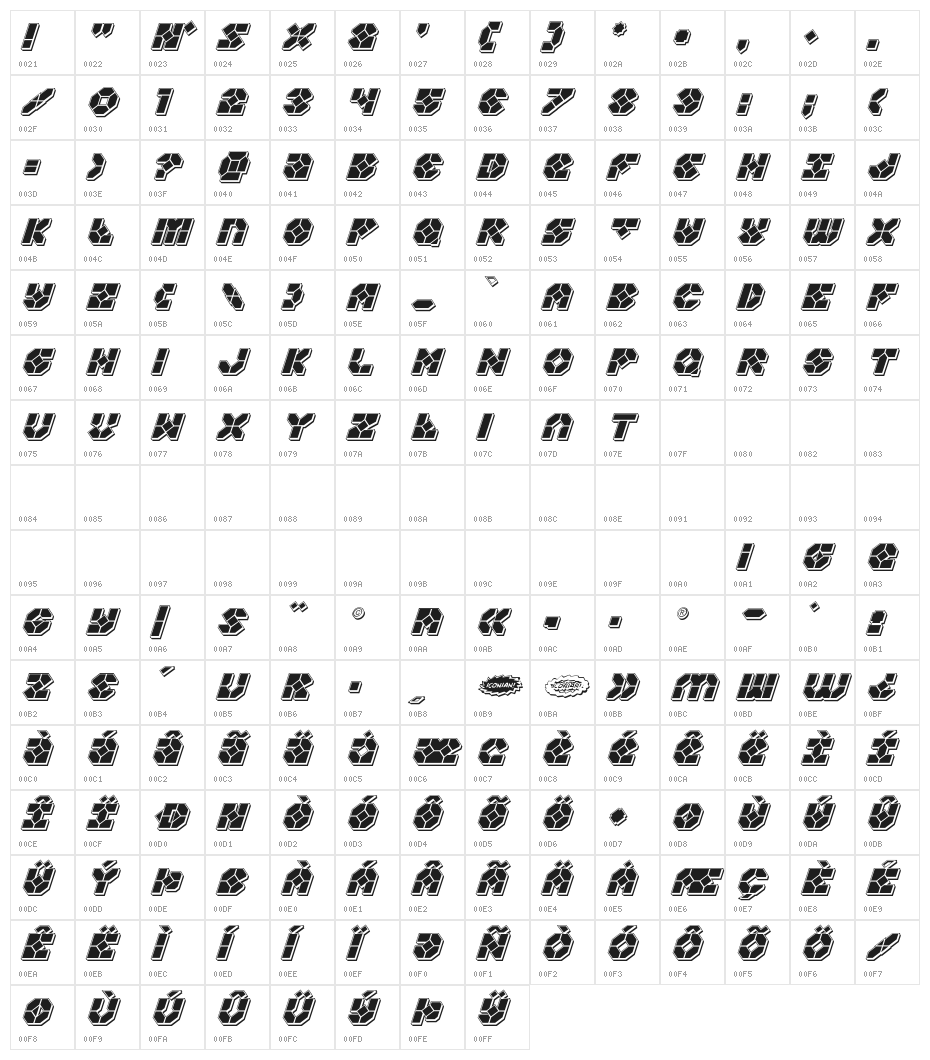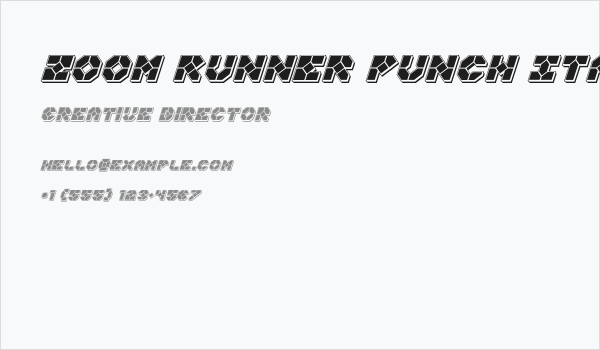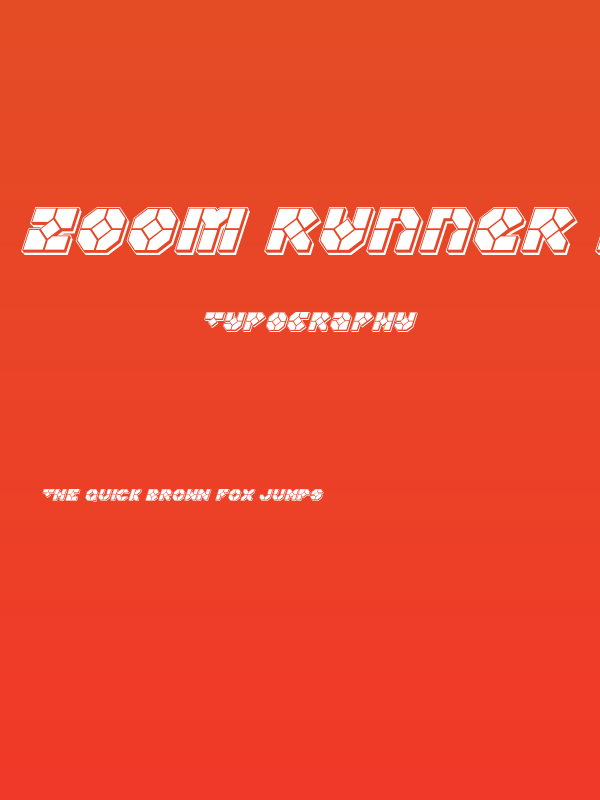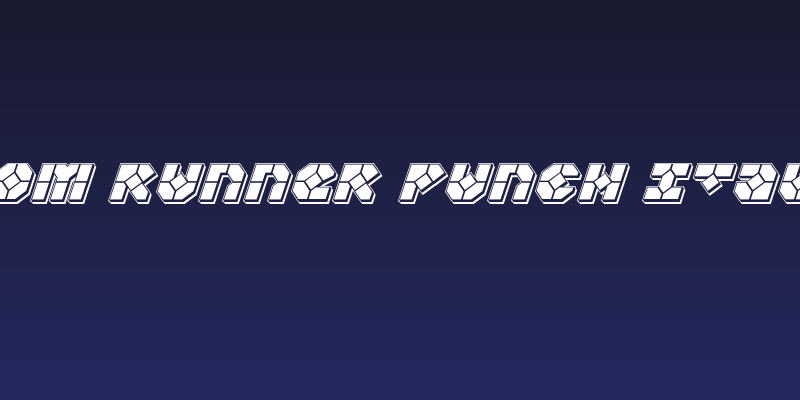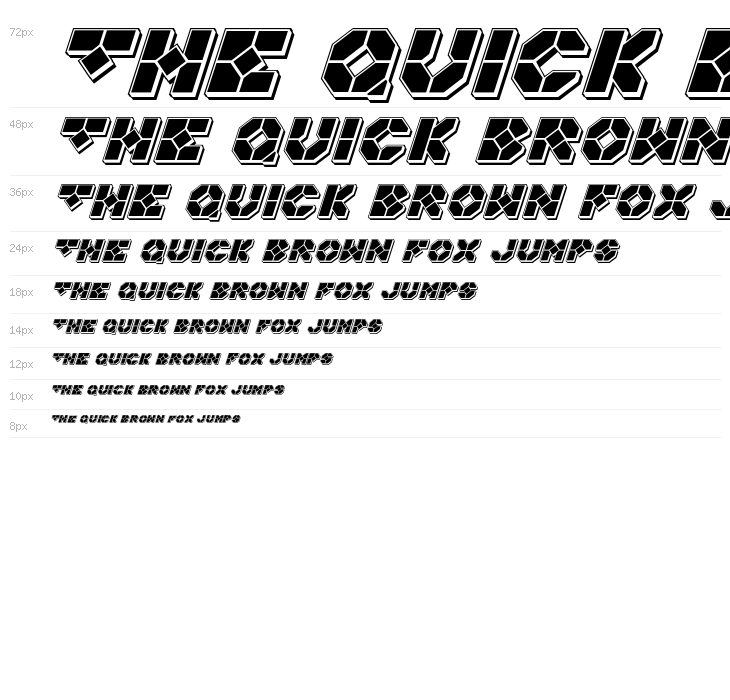
Zoom Runner Punch Italic Font
Zoom Runner Punch Italic Description
This font features a bold, geometric design with a three-dimensional effect, giving each character a dynamic and futuristic appearance. The letters are constructed with sharp angles and a blocky structure, creating a sense of depth and movement. The italic style adds a forward-leaning slant, enhancing the sense of speed and modernity. The font's unique style makes it stand out, with each character appearing as if it's part of a complex, interlocking puzzle. The bold outlines and internal lines add to the visual interest, making it suitable for eye-catching designs.
| Overall Style | Futuristic, Dynamic |
| Proposed Projects | Ideal for sci-fi themed projects, video game titles, tech branding, and futuristic posters. |